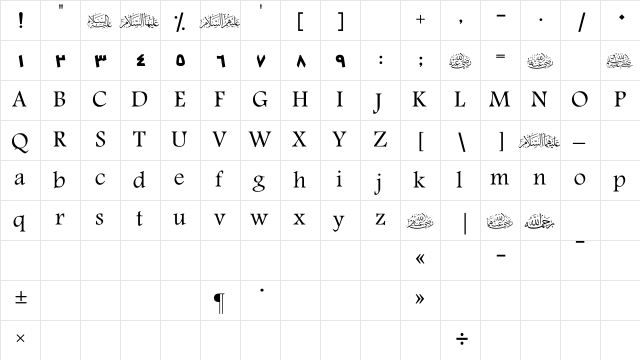
SC_TARABLUS REGULAR
Design Context for SC_TARABLUS Typeface
SC_TARABLUS is a composed and adaptable typeface that performs quietly and consistently across a wide range of design contexts.
Pro Tip: Use SC_TARABLUS in both headline and body roles to test its range before committing to a single application.